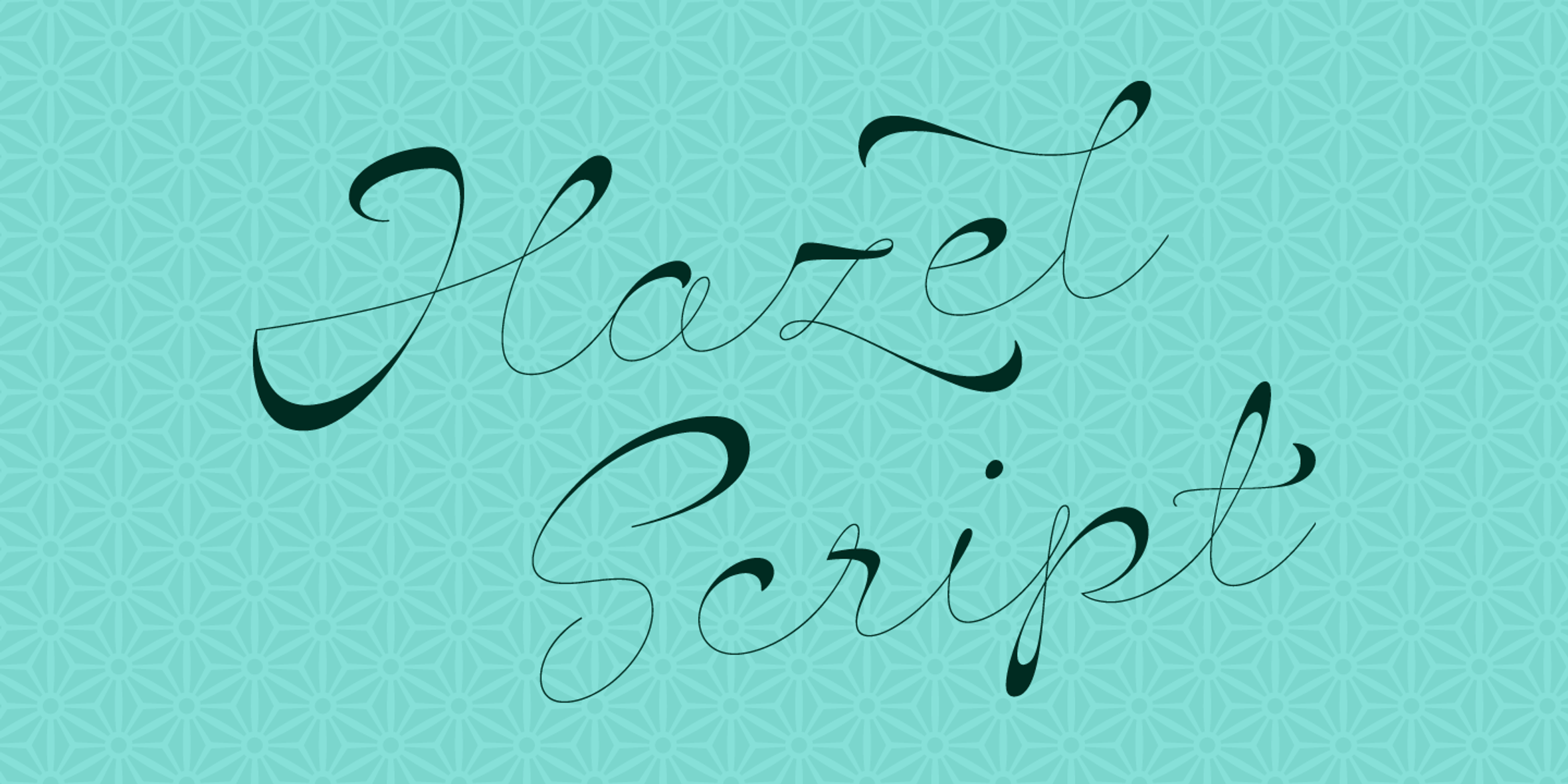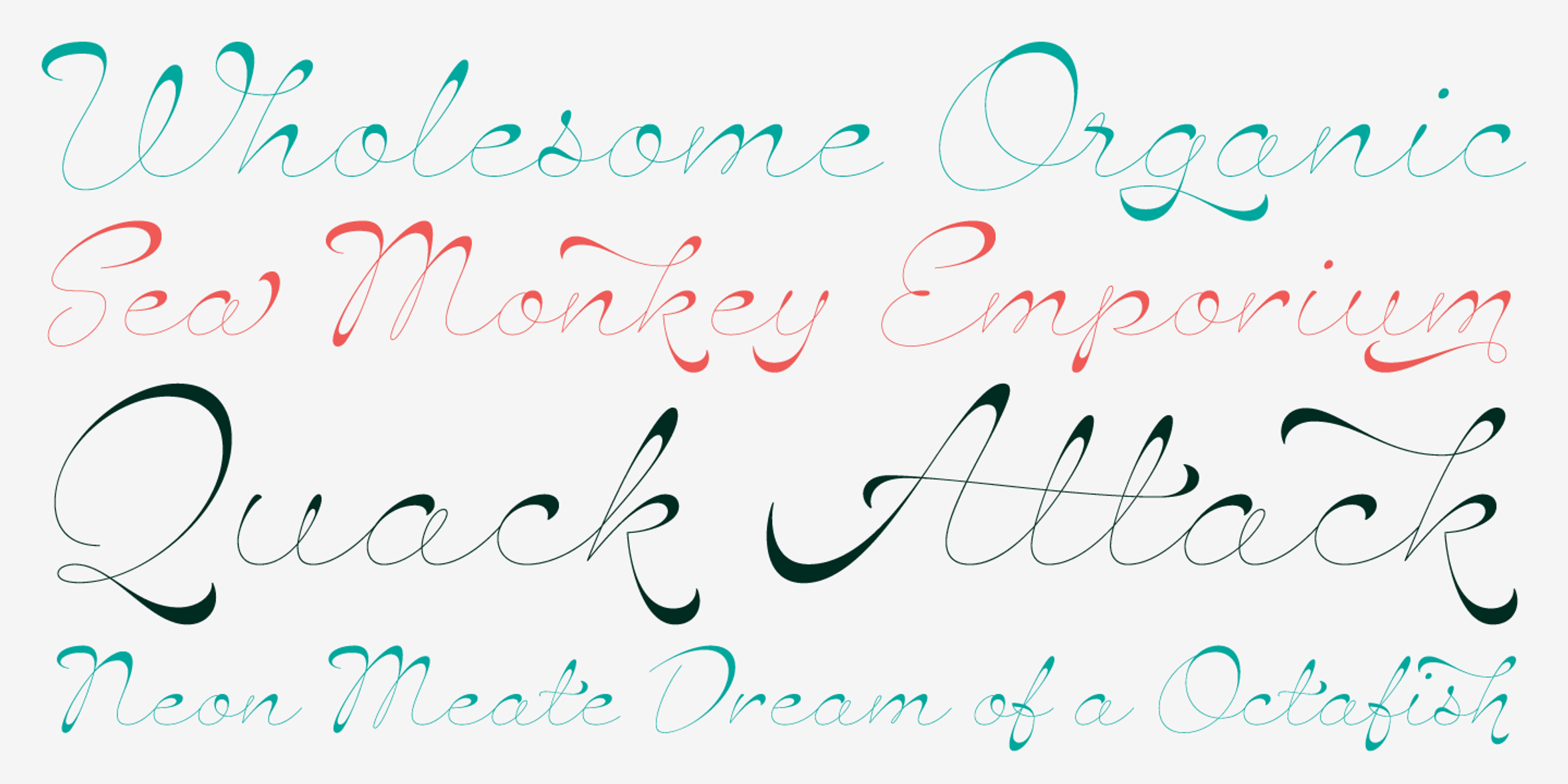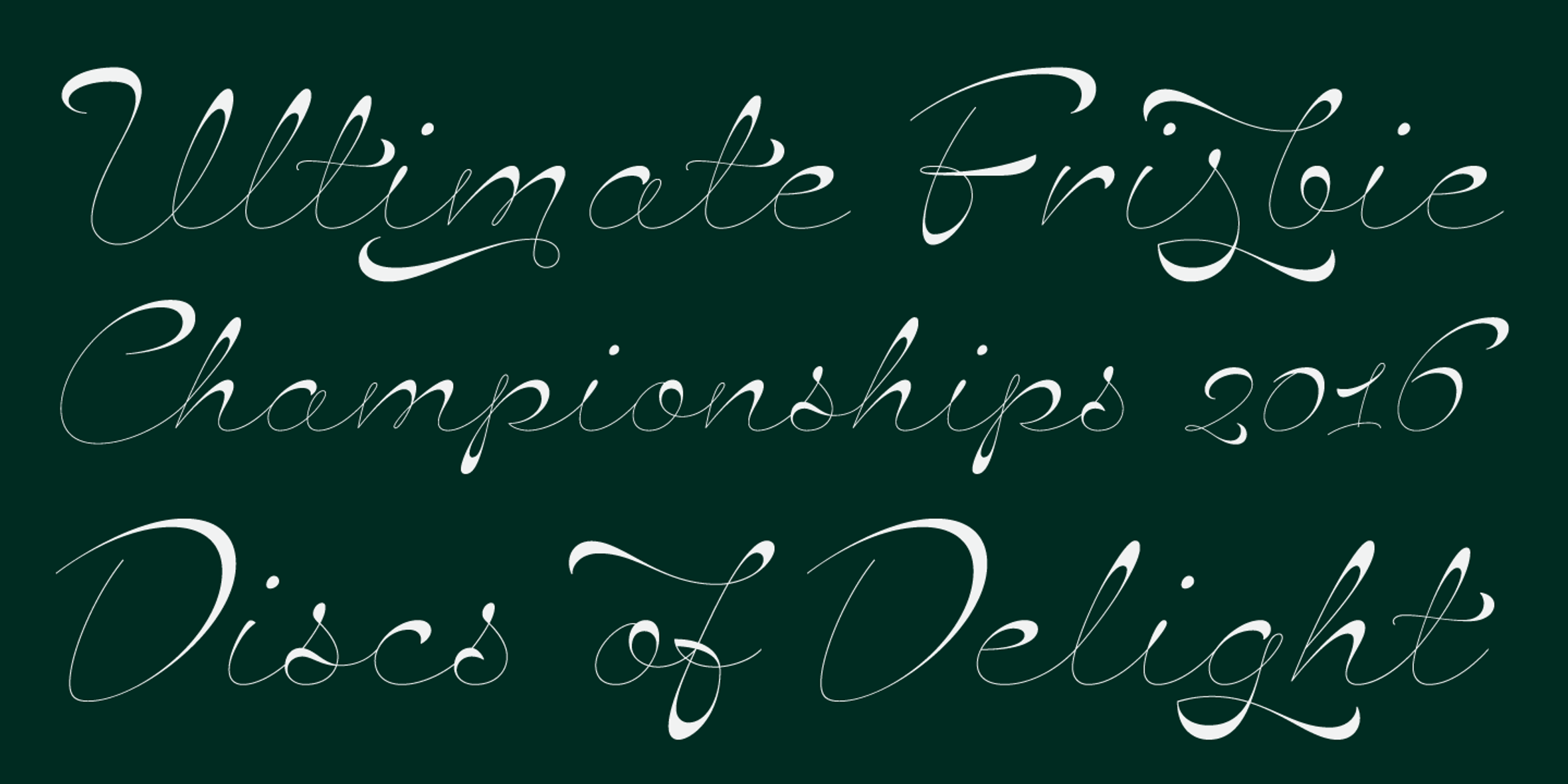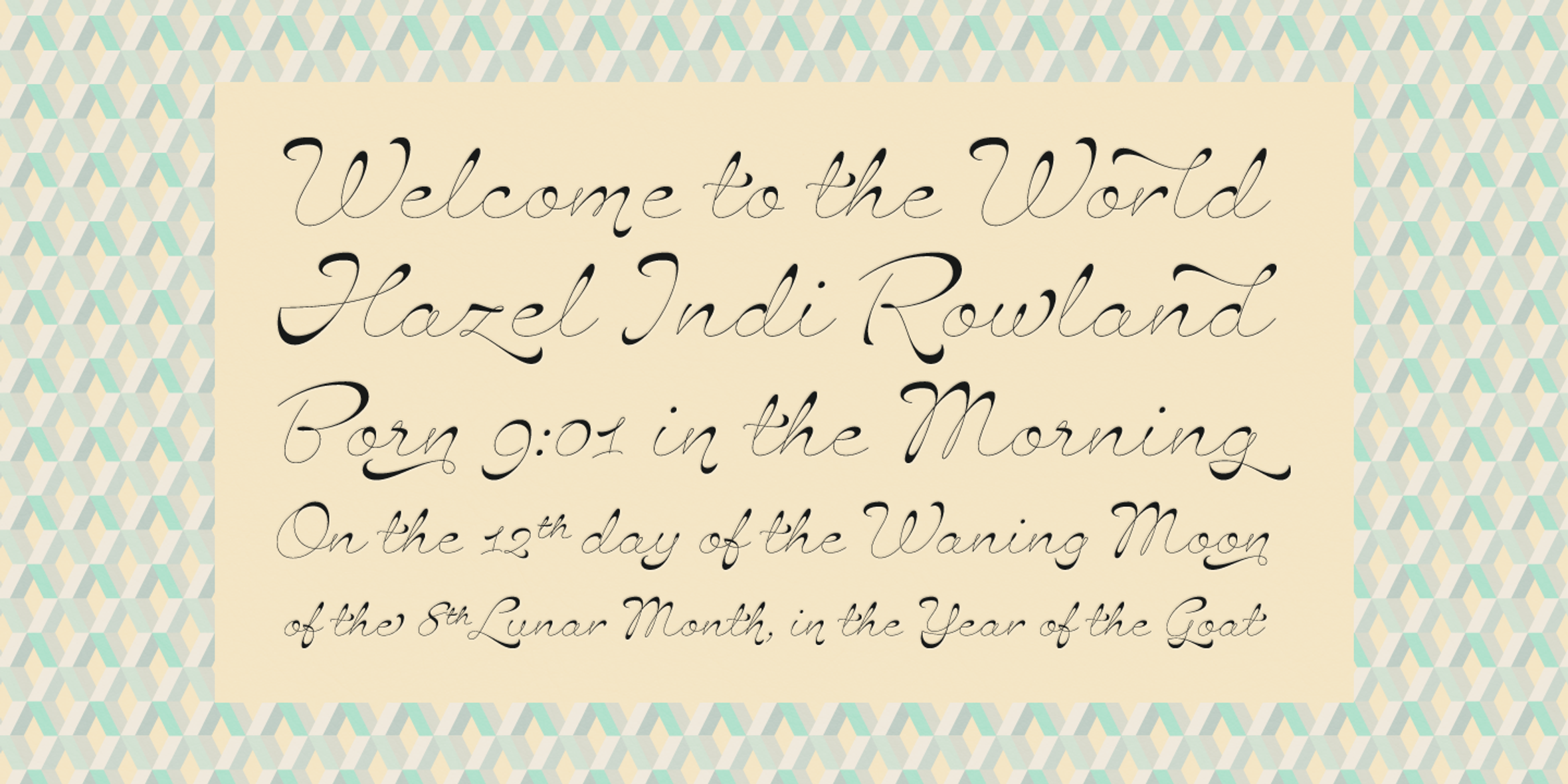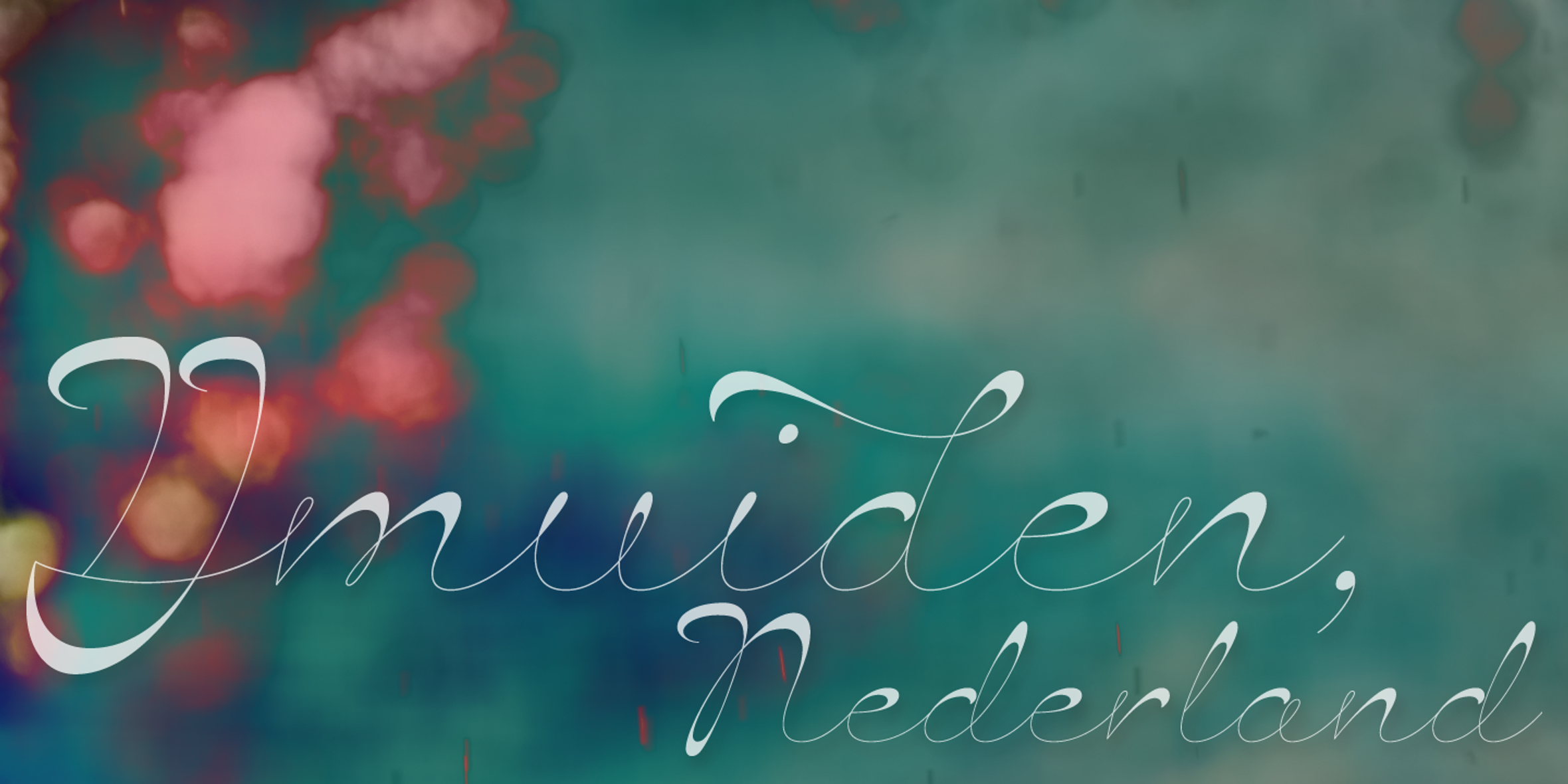
Hazel Script
Hazel Script is a finely crafted, elegant, connecting script. The contrast in the face is not based on any ductal logic. The thick parts of glyphs are purely aesthetic devices, placed to give the otherwise monoline font an intriguing rhythm. The oversized uppercase letters follow a mid-century lettering skeleton, and swashes can be used judiciously to add spice to the text. Hazel Script would add compelling visual interest to glossy magazines, wedding invitations, and birth announcements.
- Common Ligatures
- Fractions
- Ordinal Numerals
- Swashes